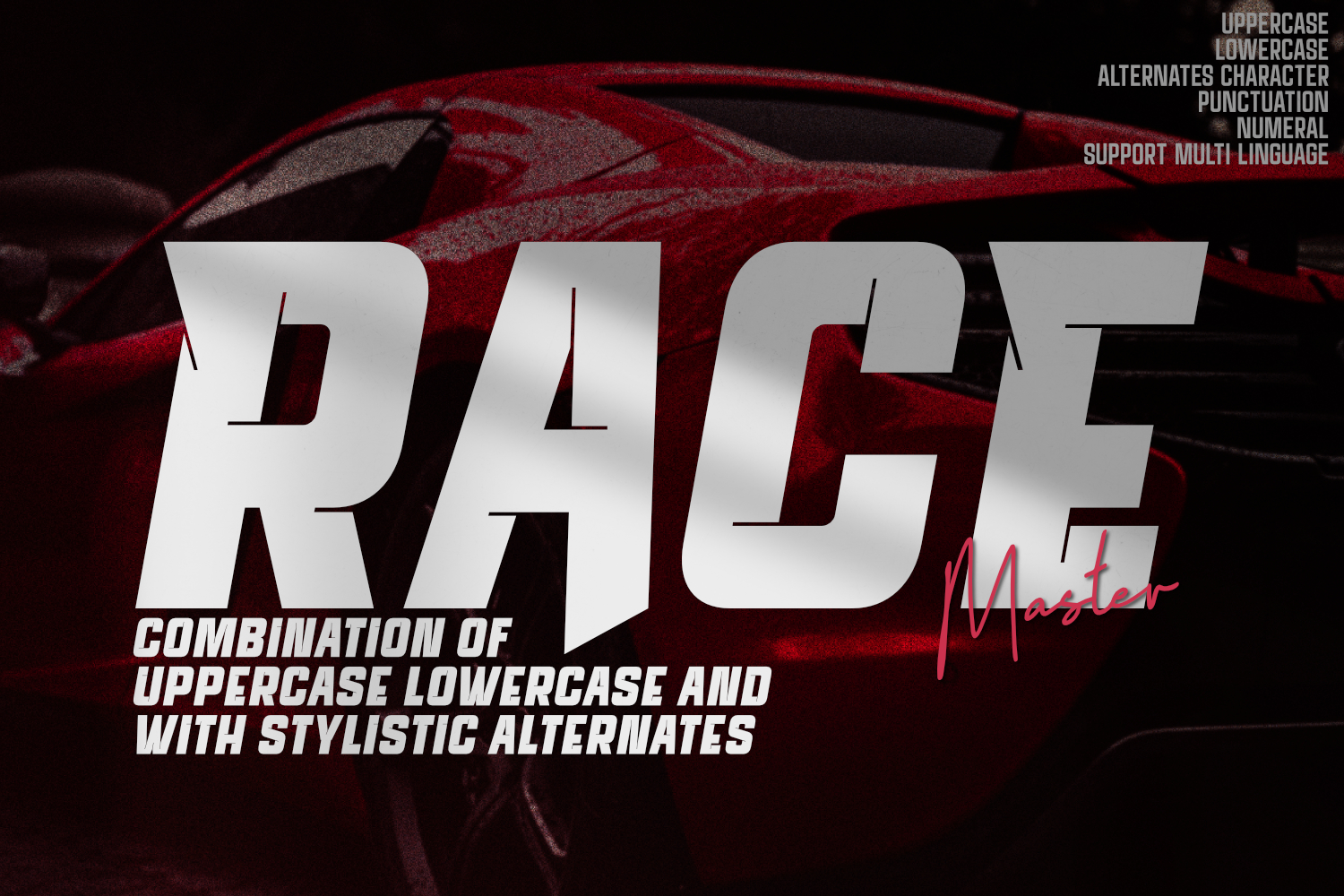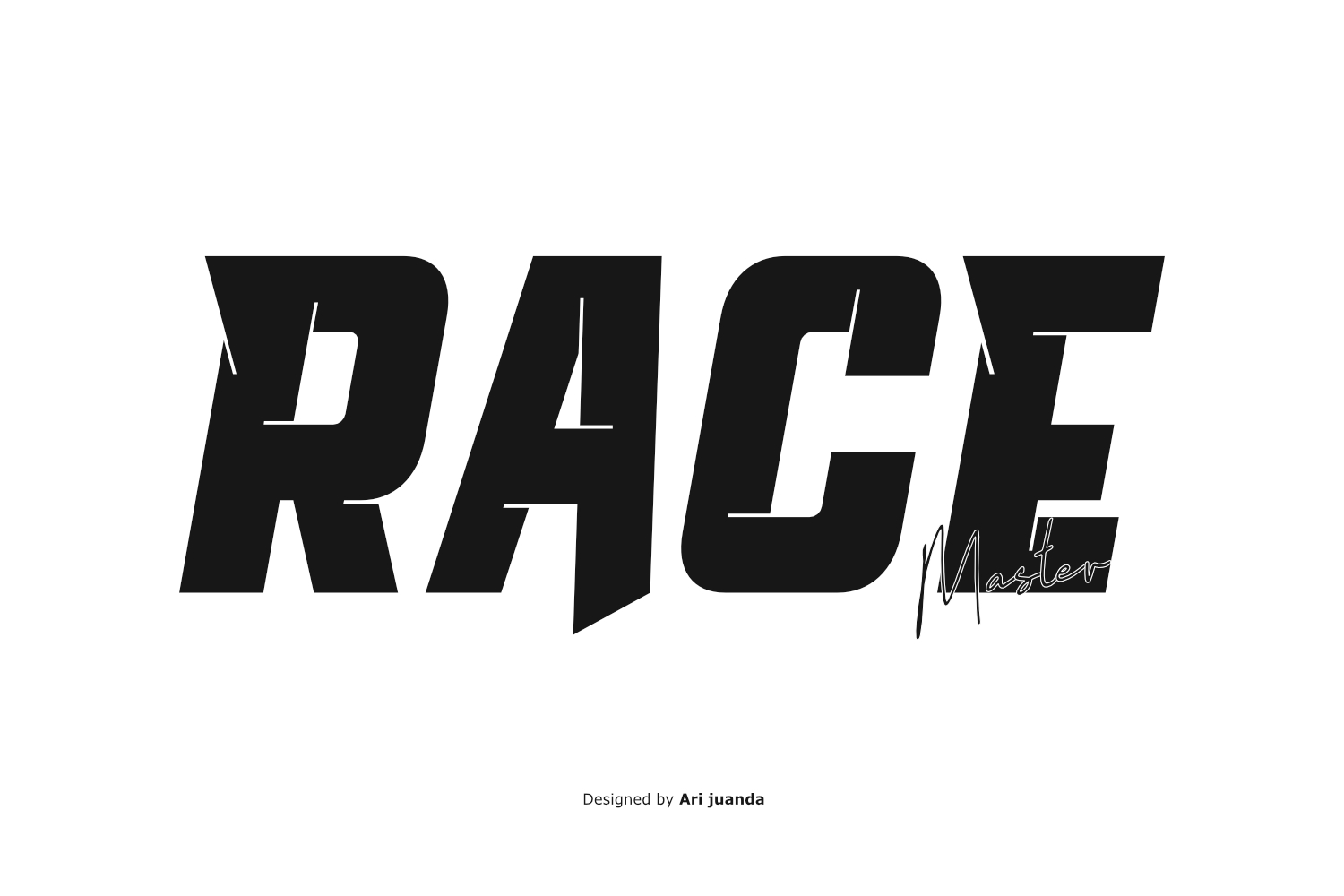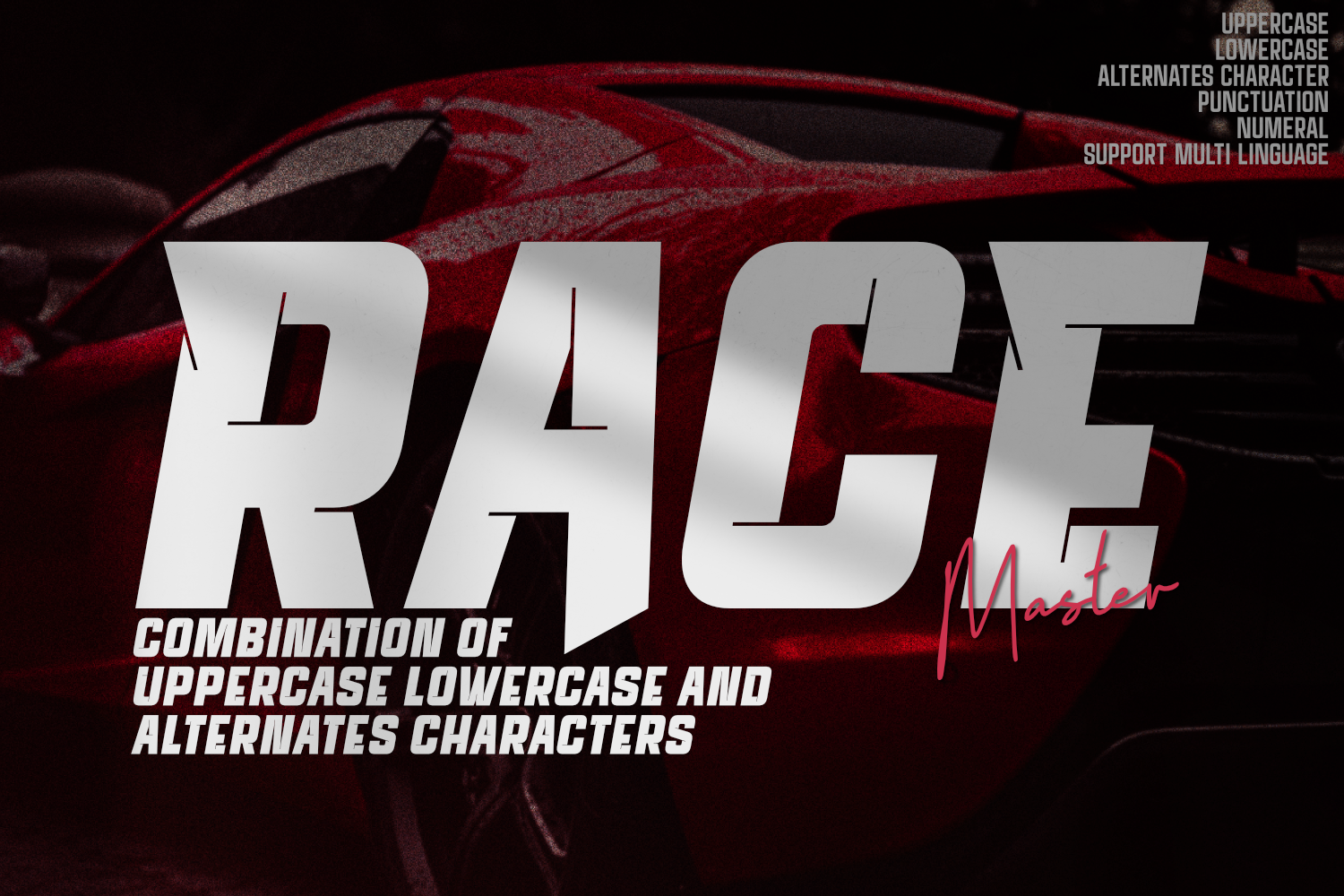
Race Master Font – Speed Display Font
Race Master Font is a bold oblique display typeface designed by Ari Juanda with distinctive diagonal slices that create a sharp, dynamic, and speed-inspired appearance. Its slanted structure gives the lettering a strong sense of movement, making Race Master a natural choice for designs connected to racing, sports, competition, and high-energy visual identities.
The defining feature of Race Master is its distinctive diagonal cuts. These sharp slices are integrated directly into the letterforms to create a unique visual rhythm while also functioning as ink traps. This combination gives the typeface a technical character and helps maintain clarity and precision when the letters are reproduced in print.
With its bold oblique construction, Race Master Font brings an energetic attitude to headlines and display typography. The italicized structure naturally suggests speed and forward movement, while the carefully shaped cuts give the characters a distinctive appearance that can help a logo, headline, or graphic composition stand apart.
Race Master also includes alternate lowercase characters, giving designers additional options for creating different typographic combinations. These alternates can be used to introduce variation into words and headlines while maintaining the overall visual identity of the typeface.
Designed for display use, Race Master Font works especially well when typography needs to communicate movement, competition, energy, and a modern sporting character.
Features
- Bold oblique display typeface
- Distinctive diagonal slices
- Functional ink trap details
- Lowercase alternate characters
- Numbers and punctuation
- Multilingual support
- Latin Western Europe character support
- Designed for bold display typography
- Suitable for print and digital design
Race Master Font is especially suitable for visual projects that need a strong sense of motion and competition. Its bold oblique construction naturally creates a forward-moving appearance, while the diagonal slices add distinctive details to each letterform. This makes the typeface useful for racing identities, sports campaigns, team graphics, event promotions, apparel, and other high-energy visual projects. The lowercase alternates can also be used to introduce additional variation when creating logos, headlines, or custom typographic compositions. With its combination of bold shapes, sharp cuts, and slanted letterforms, Race Master provides a distinctive display style for designers working on modern racing and sports-related graphics.
Race Master Font combines a bold oblique structure with distinctive diagonal cuts to create typography that feels fast, dynamic, and contemporary. The integrated ink-trap details add another layer of character to the letterforms, while the lowercase alternates give designers more flexibility when creating custom-looking compositions.
Whether you are designing a racing identity, sports campaign, editorial headline, apparel graphic, or energetic promotional artwork, Race Master provides a strong typographic foundation for projects that need a clear sense of movement and speed.
Its bold proportions and oblique construction make it particularly effective at large display sizes, where the diagonal cuts and sharp details can become an important part of the overall graphic composition.
Designed by Ari Juanda
Race Master was designed by Ari Juanda, combining speed-inspired typography with carefully constructed letterforms, diagonal cuts, and functional ink-trap details.